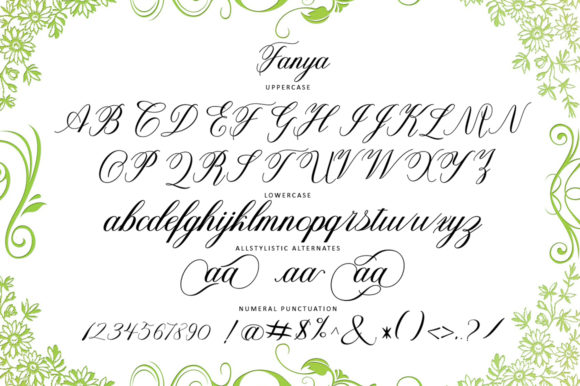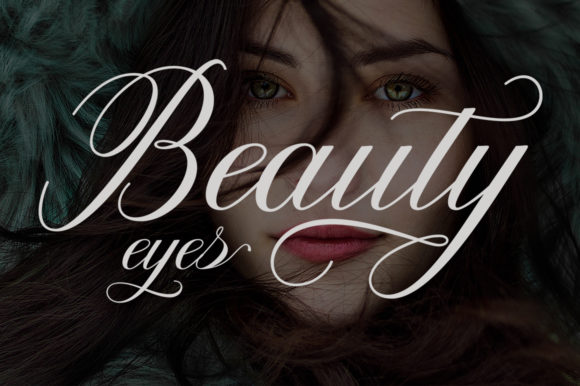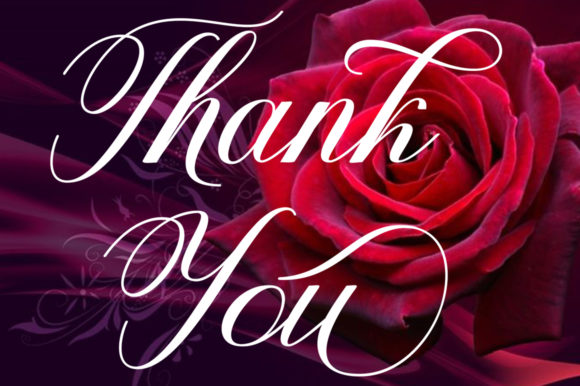
Introduction to Fanya Font
Fanya is a modern calligraphy design, including Regular.
This font is casual and beautiful with swash Can be used for various purposes.
Fanya Font offers exceptional quality and versatility, making it a valuable addition to your design toolkit. Whether you’re creating for personal projects or commercial use, Fanya Font delivers professional results.